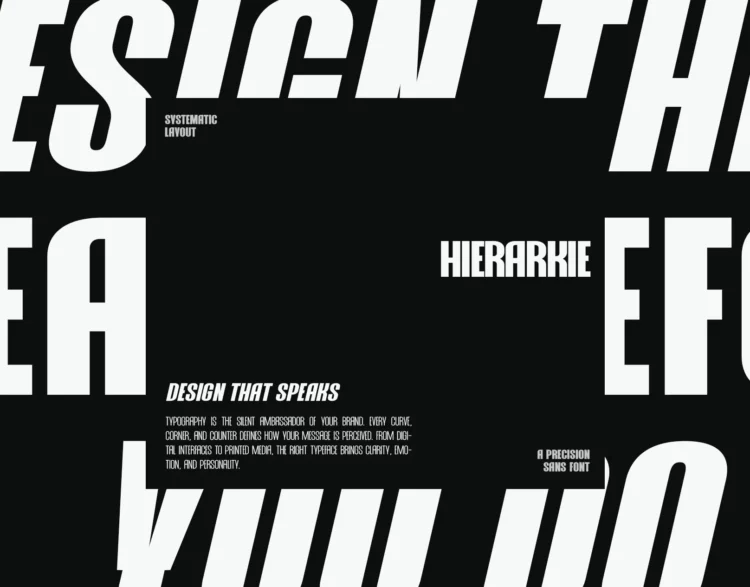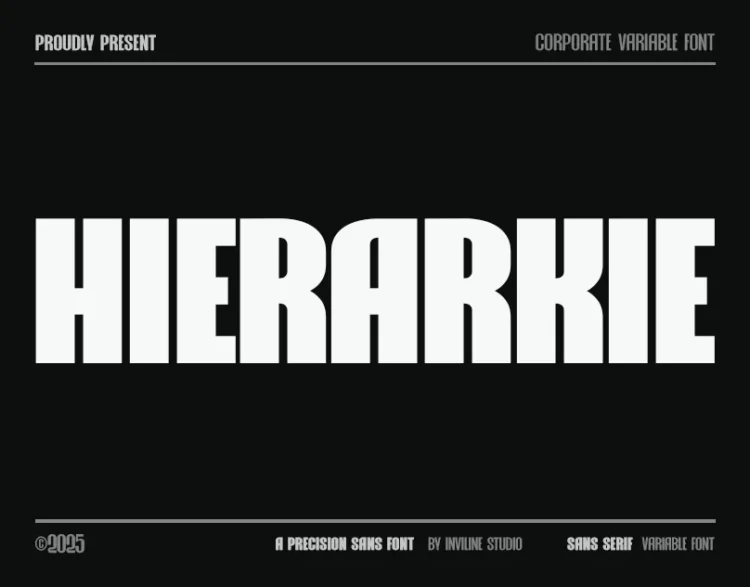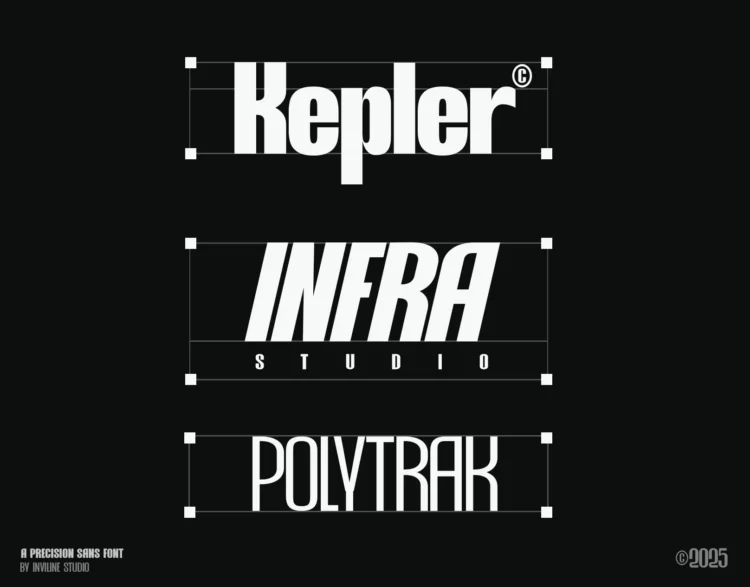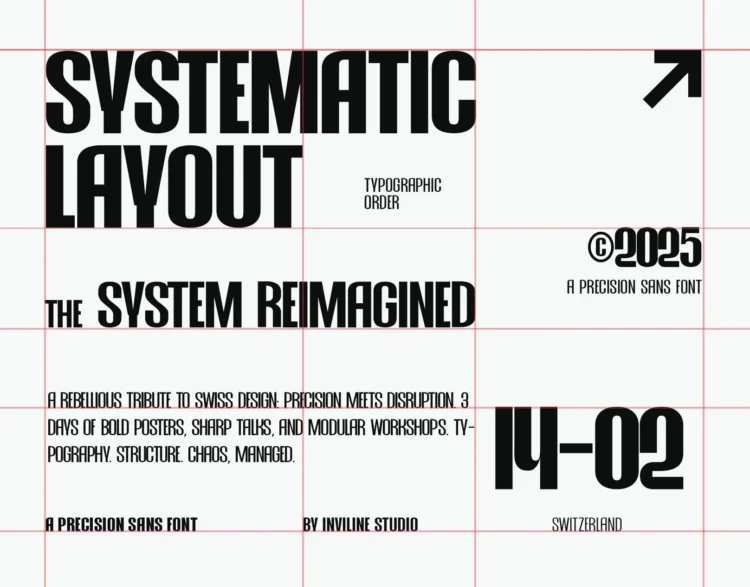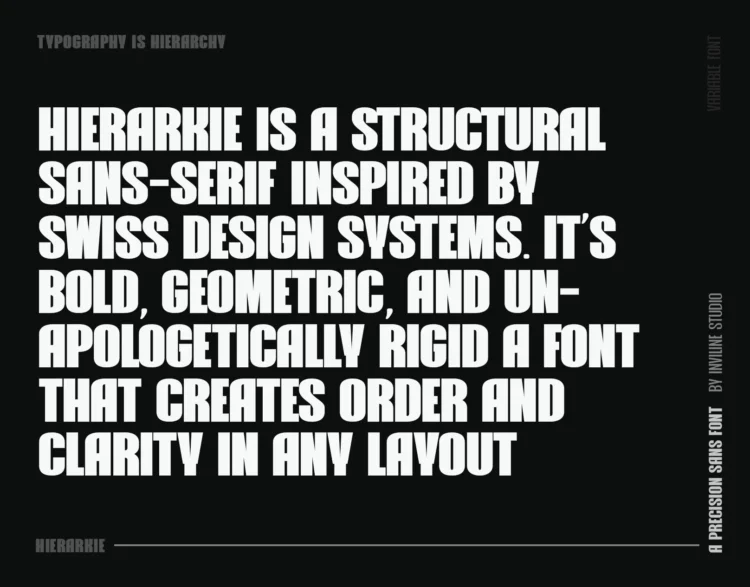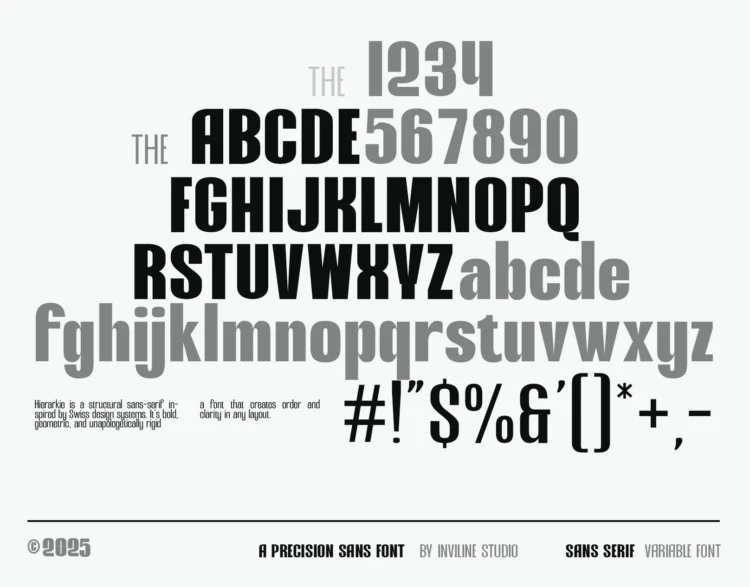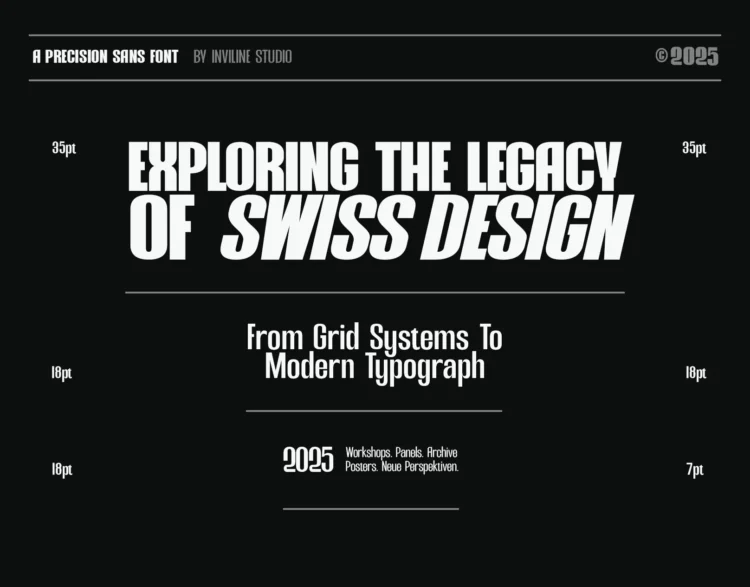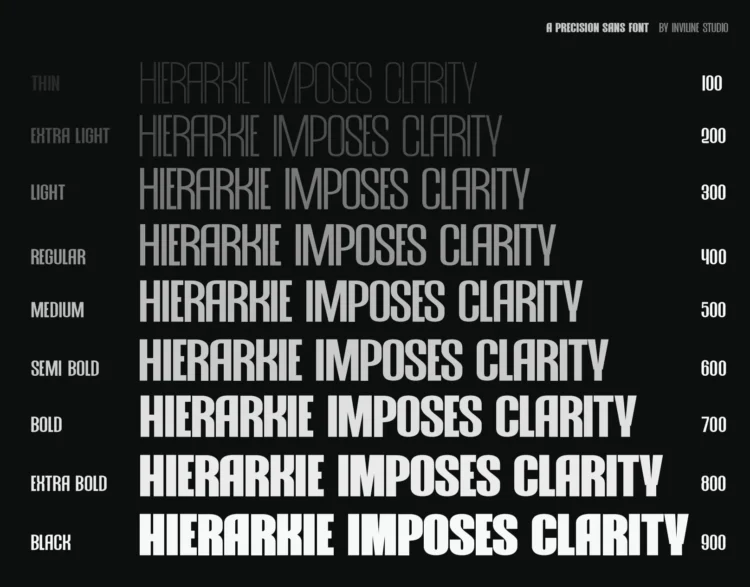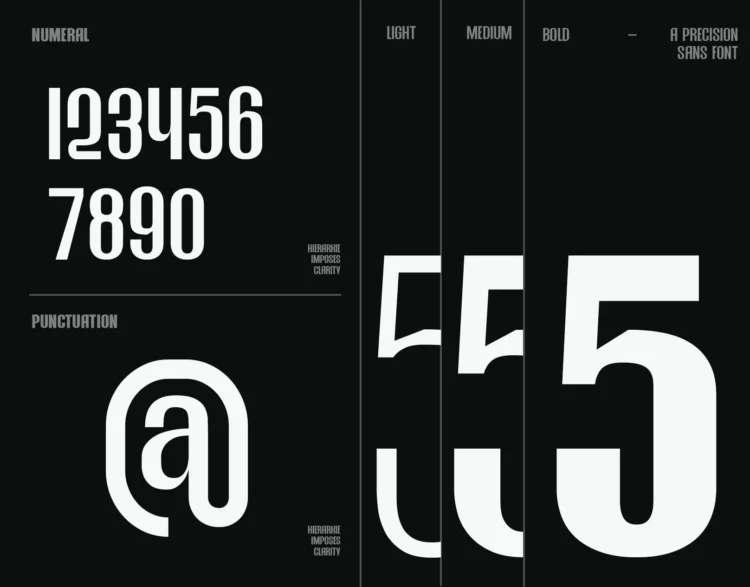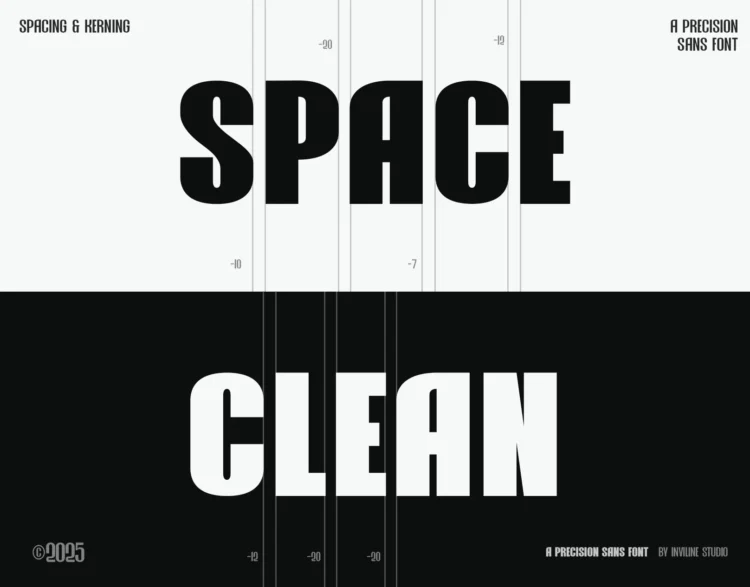
HIERARKIE – Corporate Variable Font
Hierarkie is a modern corporate typeface built for clarity, authority, and performance. Designed with precision and flexibility, this variable font bridges the gap between formal corporate tone and contemporary aesthetics. With adjustable weight ranges, Hierarkie adapts seamlessly across branding, editorial layouts, digital interfaces, and data-heavy visuals — making it the perfect choice for professional environments that demand versatility.
The name “Hierarkie” (derived from “Hierarchy”) reflects its purpose: establishing clear visual order in any design system. Whether you’re building brand guidelines, designing presentations, or crafting websites, Hierarkie empowers visual hierarchy with confidence.
• Uppercase & lowercase
• Numbers, punctuation, symbols
• Multilingual support (Latin script)
Perfect For:
• Corporate branding & visual identity
• UI/UX design & web applications
• Editorial layouts & presentations
• Data visualizations & infographics
• Business reports & pitch decks